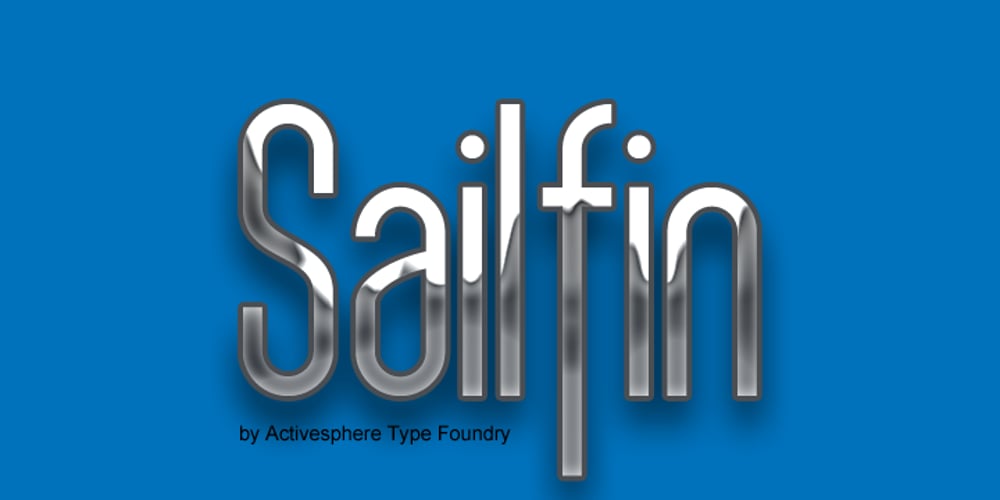
Sailfin Font Family was designed by Ronnie Dela Cruz and published by ActiveSphere. Sailfin contains 7 styles and family package options. Sailfin is a condensed geometric typeface, and works best in text and display applications, such as headline, posters, signage, magazine, product branding, corporate branding, logos and titles. Several alternate characters are included in this typeface.